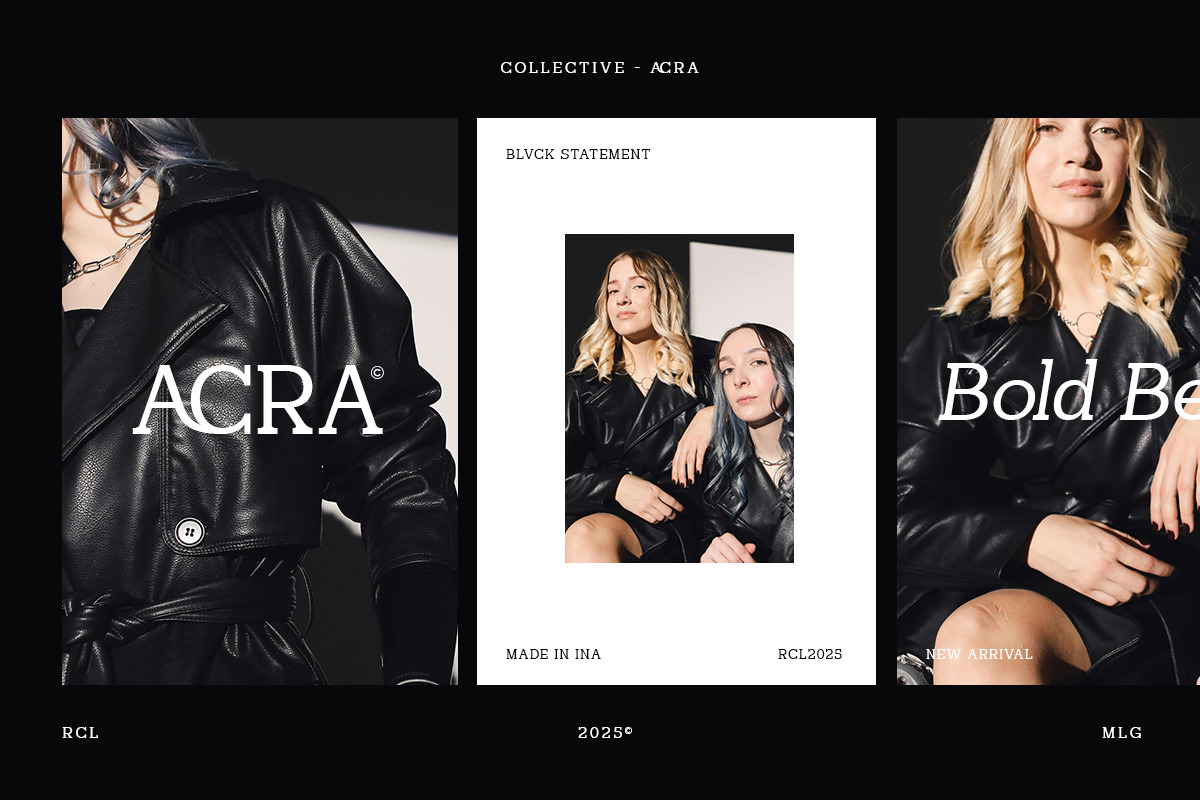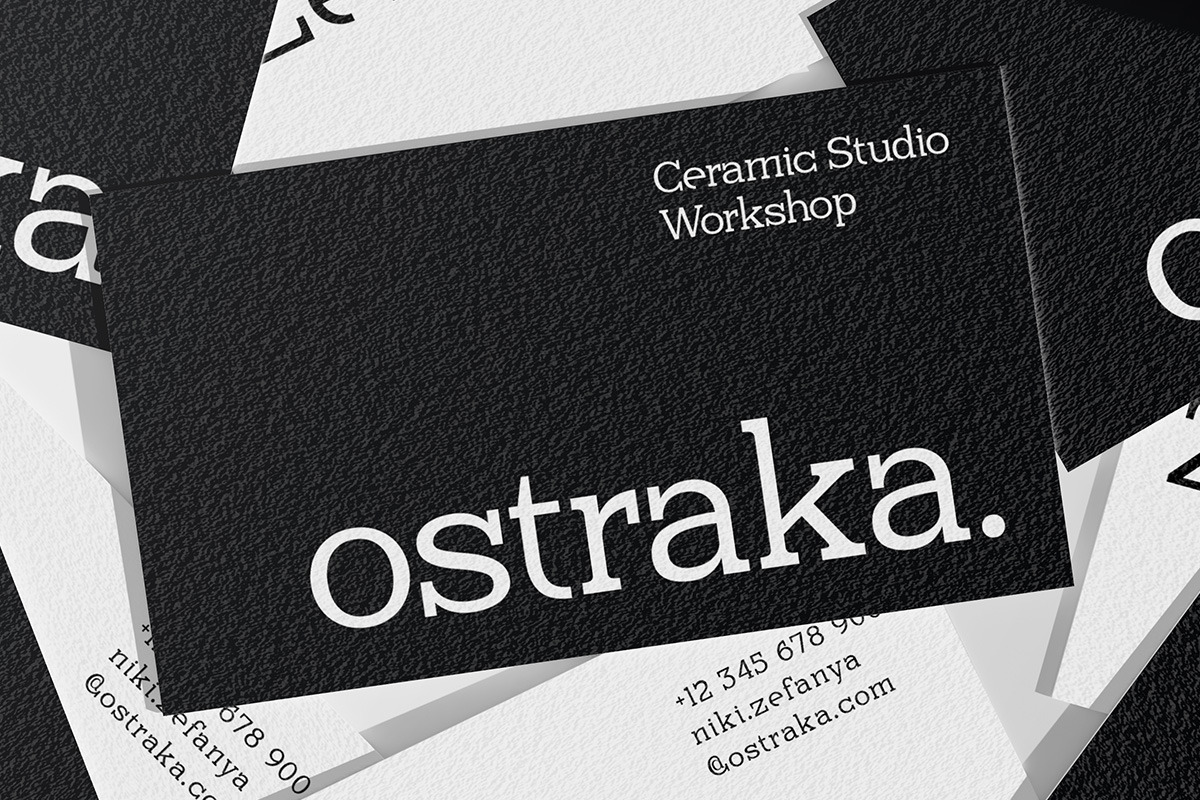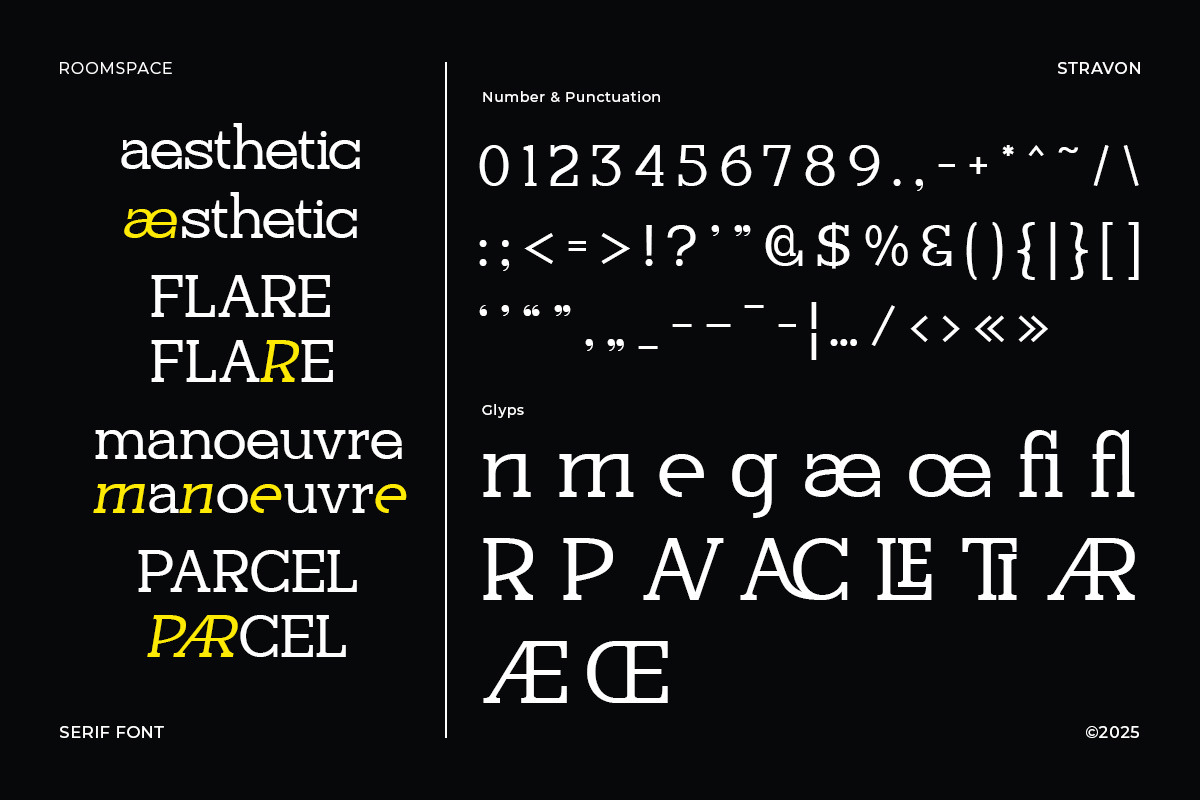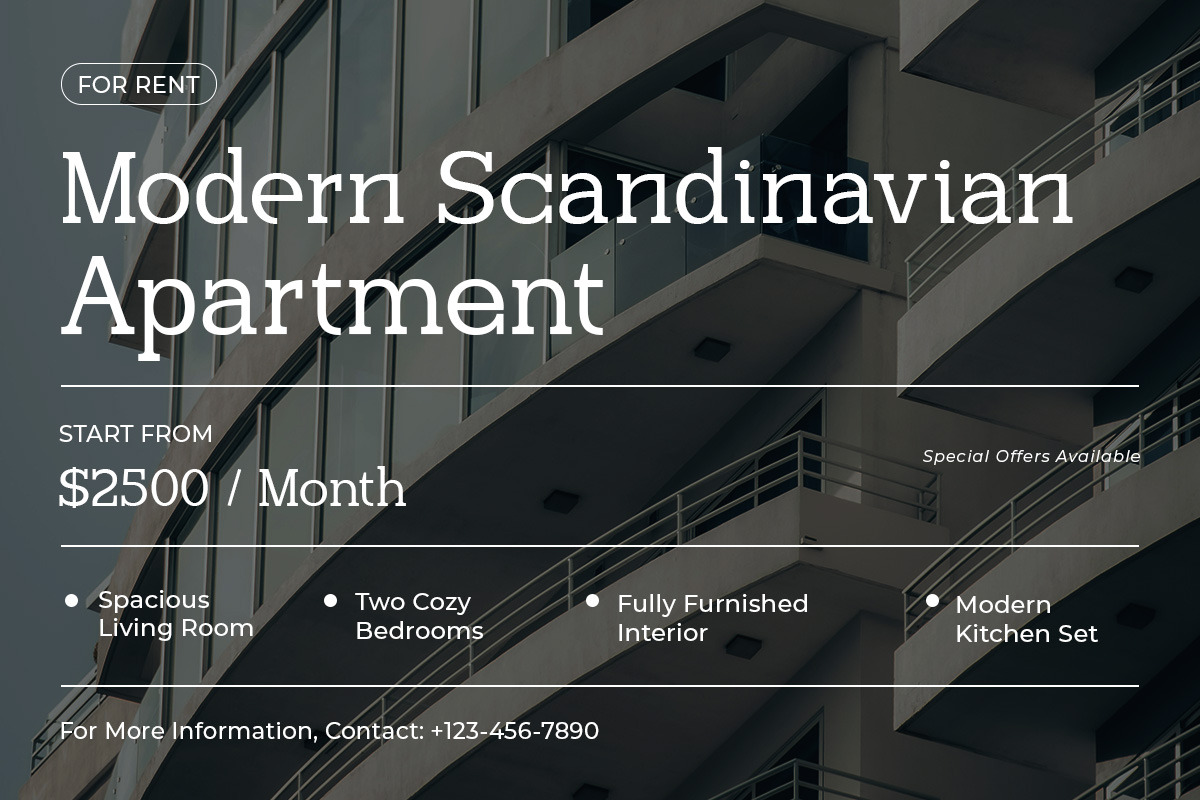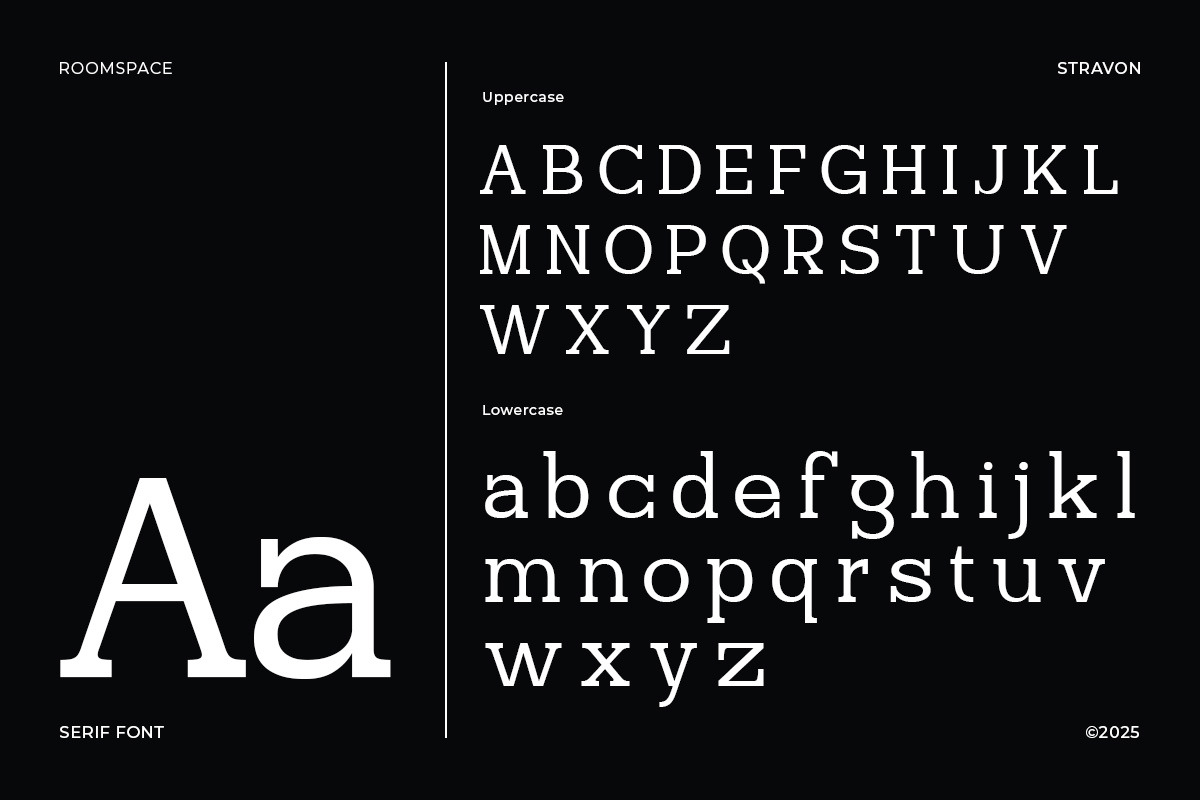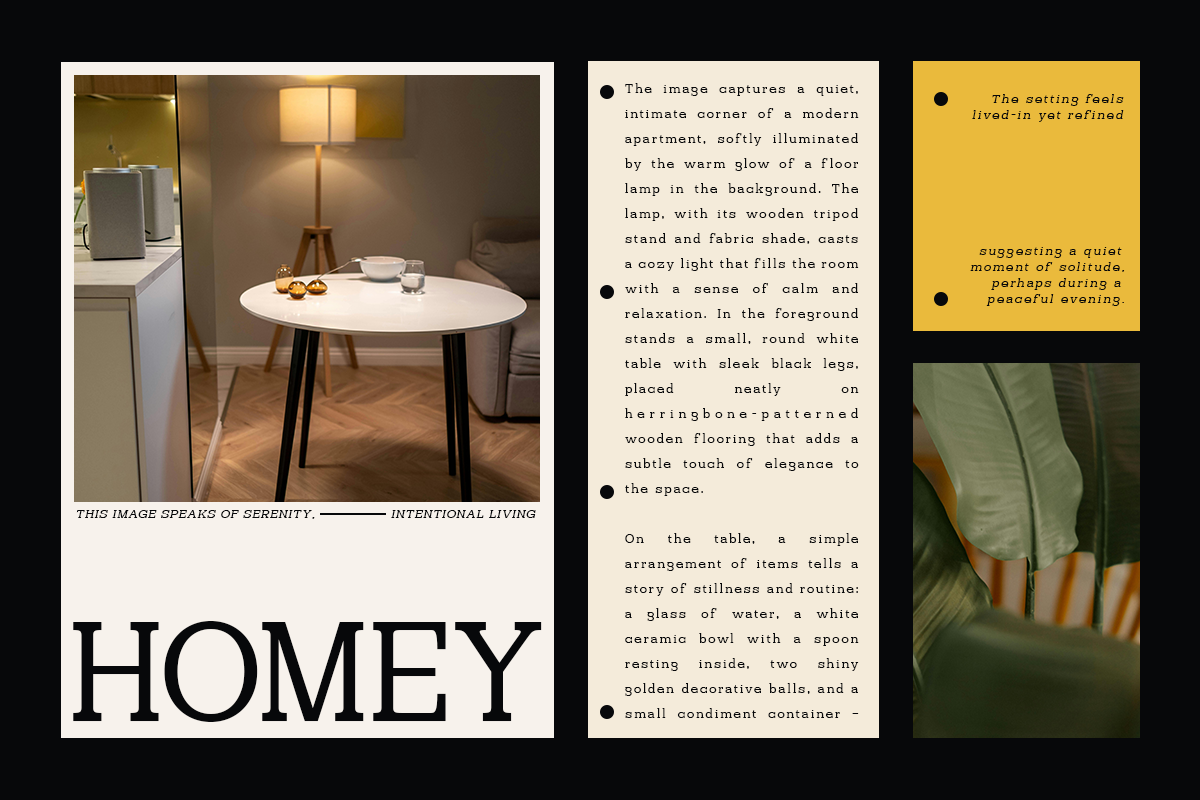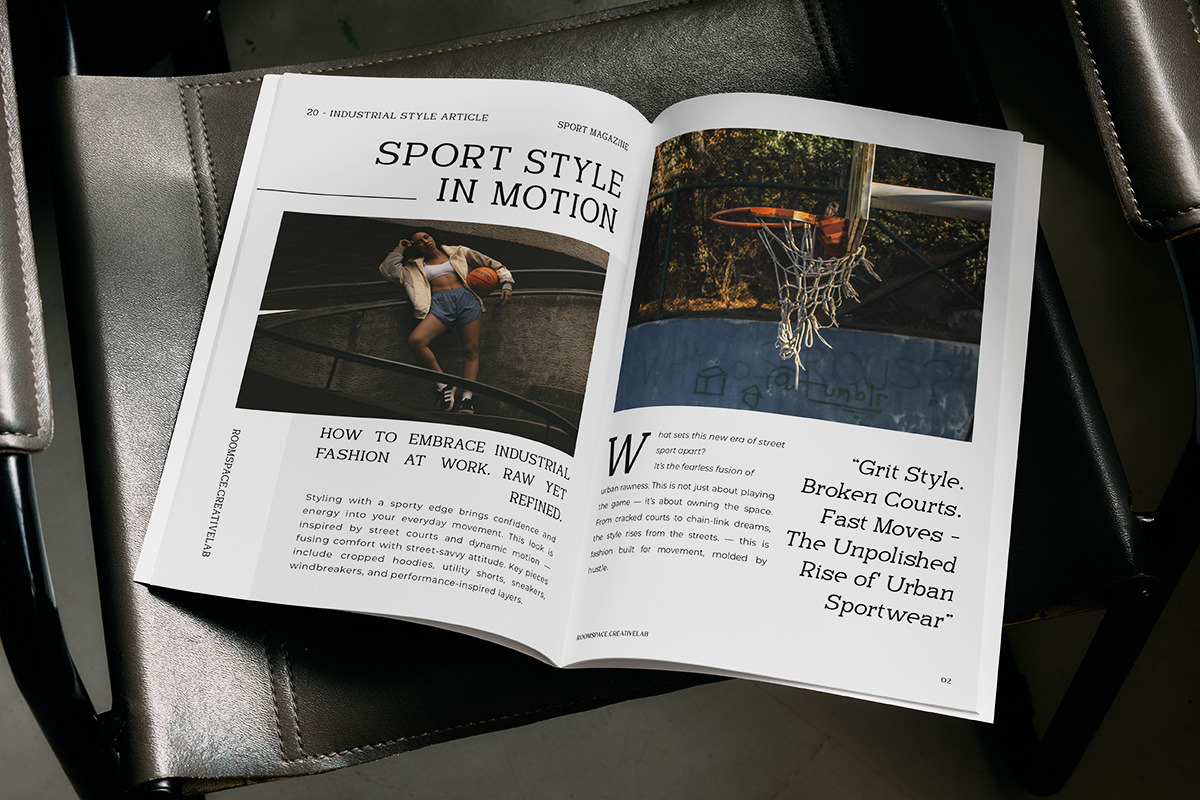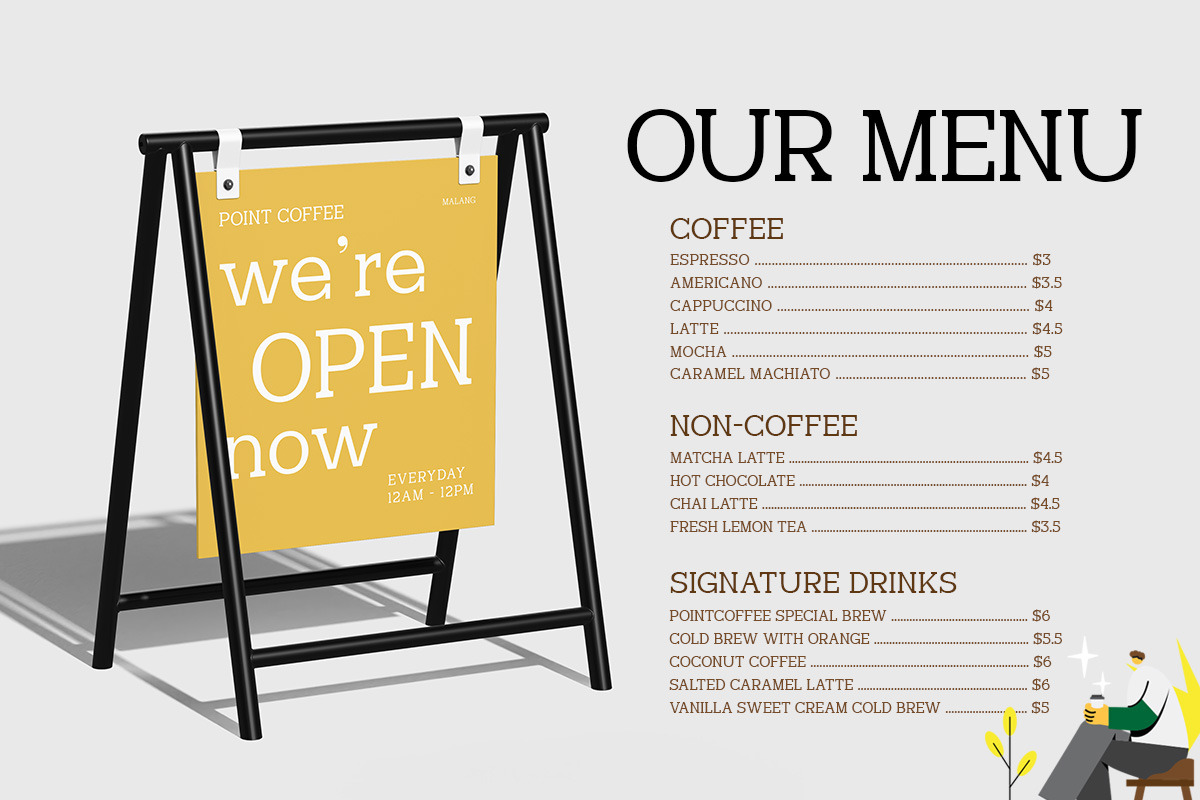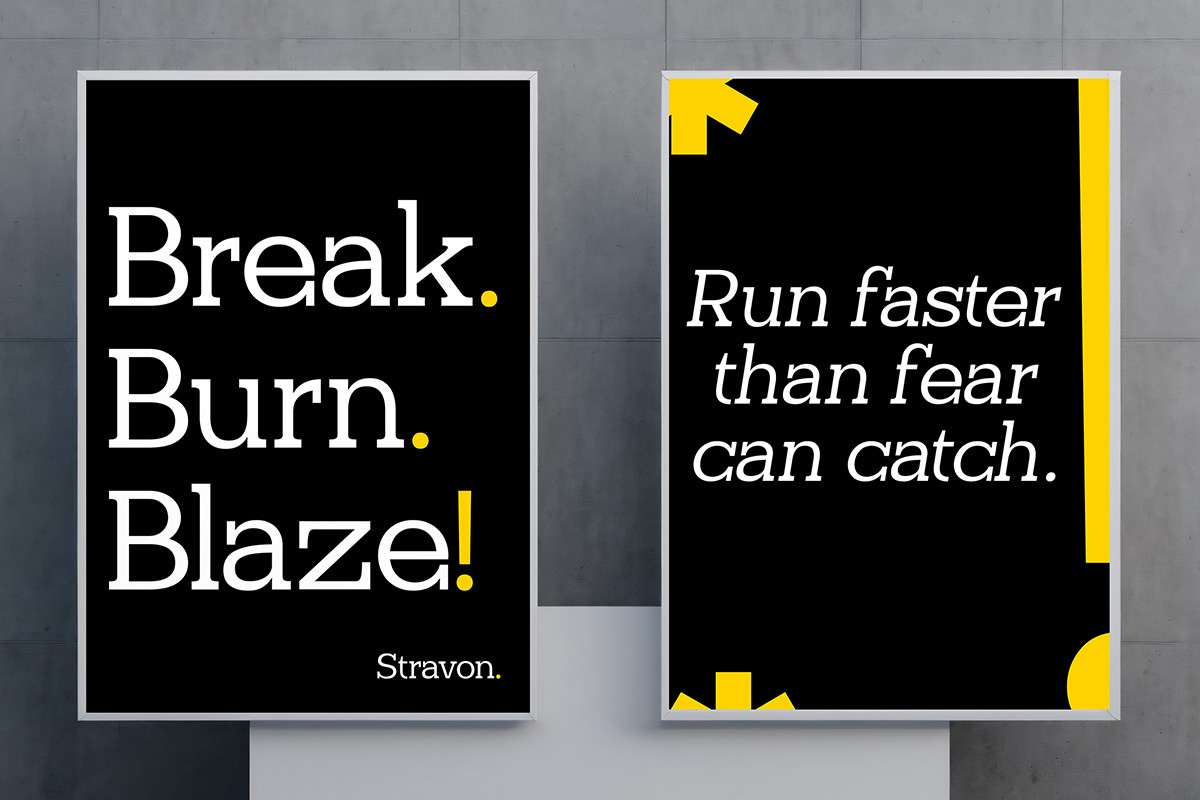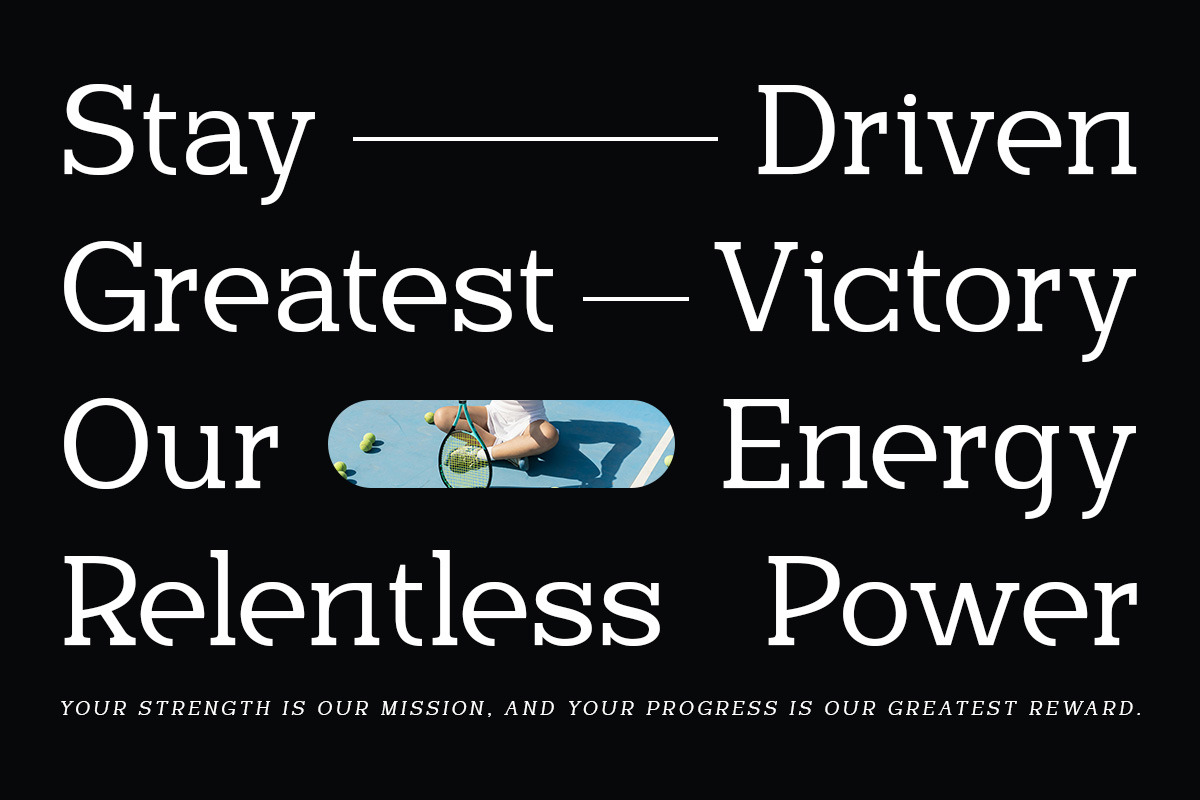
Stravon - Corporate Logo Modern
Stravon is a refined serif typeface designed to elevate your visual identity with a bold and intelligent personality. With its strong contrast, crisp serifs, and elegant curves, this font adds sophistication to any design — from luxury branding and fashion editorials to cinematic titles and editorial layouts.
Its balanced proportions and clean readability make it highly versatile, fitting both modern aesthetics and classic design standards. Stravon is ideal for professionals seeking a typeface that communicates confidence, authority, and timeless